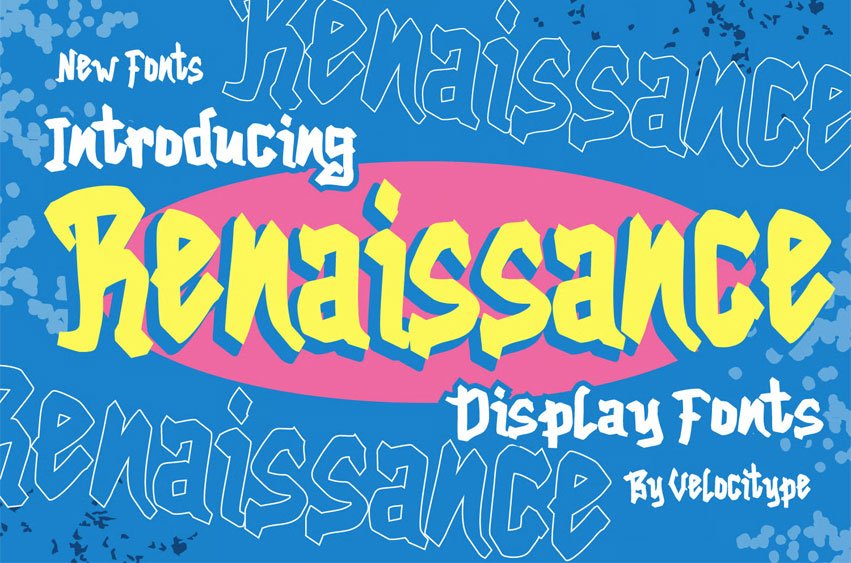
Renaissance Font is a Modern Display font, will be suitable for any projects such as branding, promotional ads, quotes design, merchandise, social media and much more.